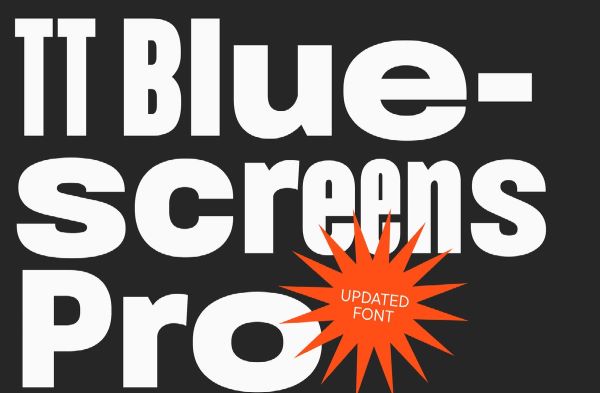
TT Bluescreens Pro Font
TT Bluescreens Pro by TypeType Foundry is a modular sans-serif with a decade of evolution behind it. Originally created in 2015 for movie posters and credits, its defining characteristic was a distinctly narrow proportion. Over successive versions it grew into a richer, more multifaceted tool — and in its fourth major release, the designers took an unexpected leap in the opposite direction, adding wide proportions alongside the narrow originals. The result is a family of extraordinary breadth: 91 styles across five subfamilies (Condensed, Normal, Expanded, Extended, and the base TT Bluescreens Pro), all unified in a single variable font, with 877 glyphs per style, 30 OpenType features, and support for over 240 languages. At home in branding, packaging, cover design, posters, film credits, and event announcements alike. A free trial is available for personal use.